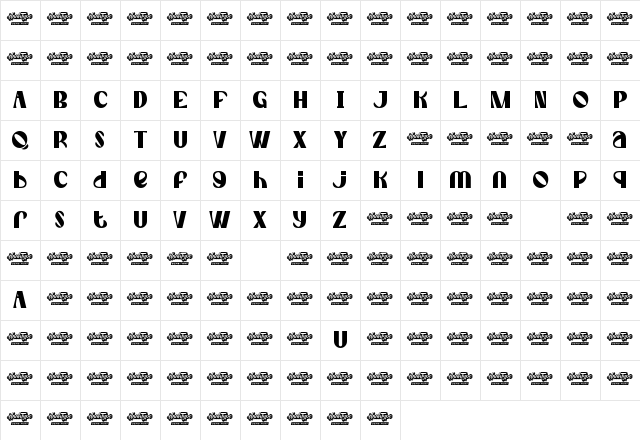
PinkScooterDemo Regular Free Font
PinkScooterDemo Regular
Foundry: NoahType
Designer: shalsha
Complete PinkScooterDemo Regular glyph index. Displaying only characters natively supported by PinkScooterDemo Regular font.
Design Context for PinkScooterDemo
PinkScooterDemo is a composed and adaptable typeface that performs quietly and consistently across a wide range of design contexts.